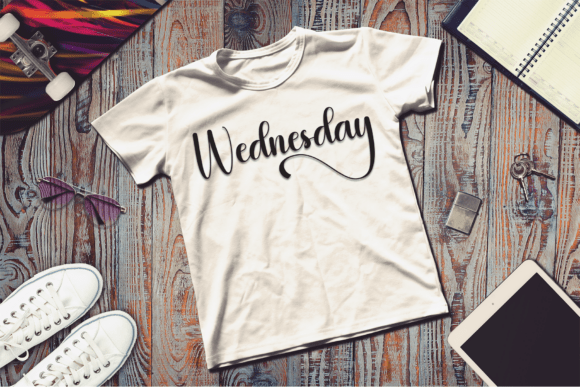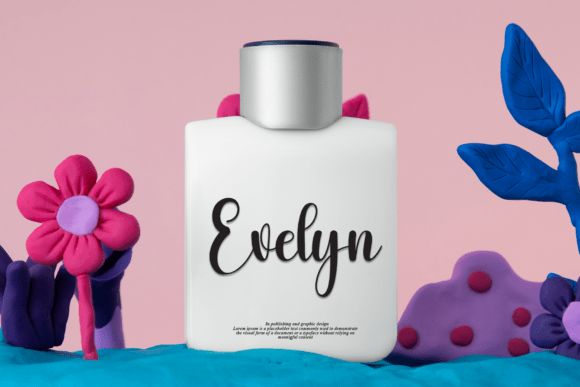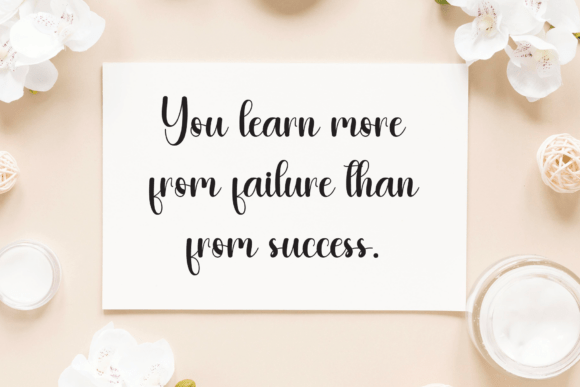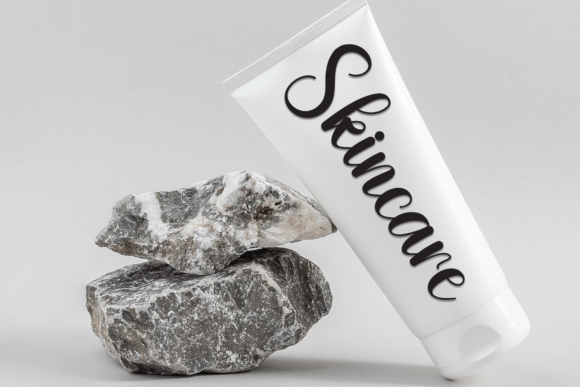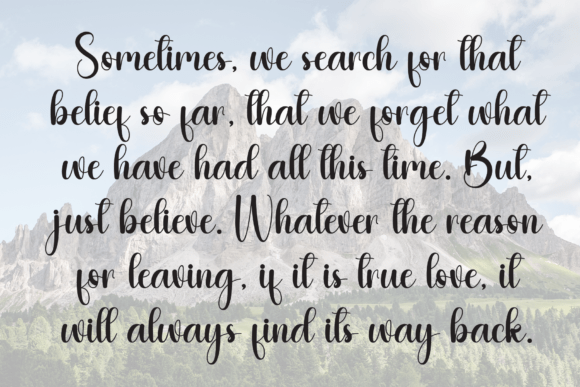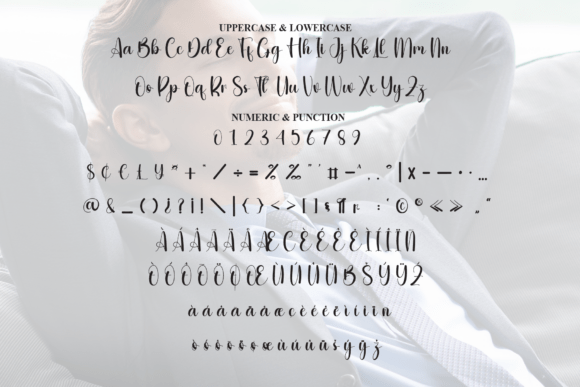
The Dreaming Font: A Charming Handwritten Display Font to Elevate Your Designs
A Perfect Blend of Sweetness and Allure
The Dreaming Font is more than just a font; it’s a statement piece. Designed with a delightful twist of fun and whimsy, it breathes authenticity into your design projects. Whether you’re crafting heartfelt wedding invites, enchanting cards, or simply looking to infuse vibrancy into your creative endeavors, this font is sure to deliver. Its unique blend of sweetness and allure makes it perfect for designers, crafters, and creative hobbyists looking to add a touch of joy to their work.
So, what makes the Dreaming Font so special? Here are a few things I love:
- ✨ Unique Character: The Dreaming Font has a distinct, hand-crafted feel that sets it apart from more generic fonts.
- ✅ Versatility: It can be used for a wide range of projects, from wedding invitations to social media graphics.
- 💕 Emotional Connection: The font’s whimsical nature helps create an emotional connection with your audience, making your designs more relatable and engaging.
Of course, no font is perfect. Here are a few quirks to keep in mind:
- 🤔 Legibility at Small Sizes: Like many handwritten fonts, the Dreaming Font can become less legible at very small sizes. It’s best used at larger sizes (24pt and above) for maximum impact.
- ⚠️ Limited Use in Formal Contexts: Due to its playful nature, the Dreaming Font may not be suitable for formal documents or professional communications.
The Designer Inspiration Behind the Dreaming Font
The Dreaming Font was inspired by the whimsical world of childhood imagination. Its creator sought to craft a font that would evoke feelings of joy, wonder, and playfulness. By combining elegant lines with a touch of quirkiness, the Dreaming Font was born – a true reflection of the beauty found in everyday moments.
| What makes the Dreaming Font unique? | The Dreaming Font’s unique blend of sweetness and allure, combined with its whimsical and playful nature, sets it apart from other fonts. |
| Is the Dreaming Font suitable for body text? | While the Dreaming Font can be used for body text, it’s best suited for headings and titles due to its decorative nature. |
In conclusion, the Dreaming Font is a charming handwritten display font that can elevate your designs with its unique blend of sweetness and allure. With its versatility, emotional connection, and whimsical nature, it’s perfect for a wide range of creative projects. By following the practical guide to using the font in various platforms and exploring similar fonts and alternatives, you’ll be well on your way to creating stunning designs that leave a lasting impression.